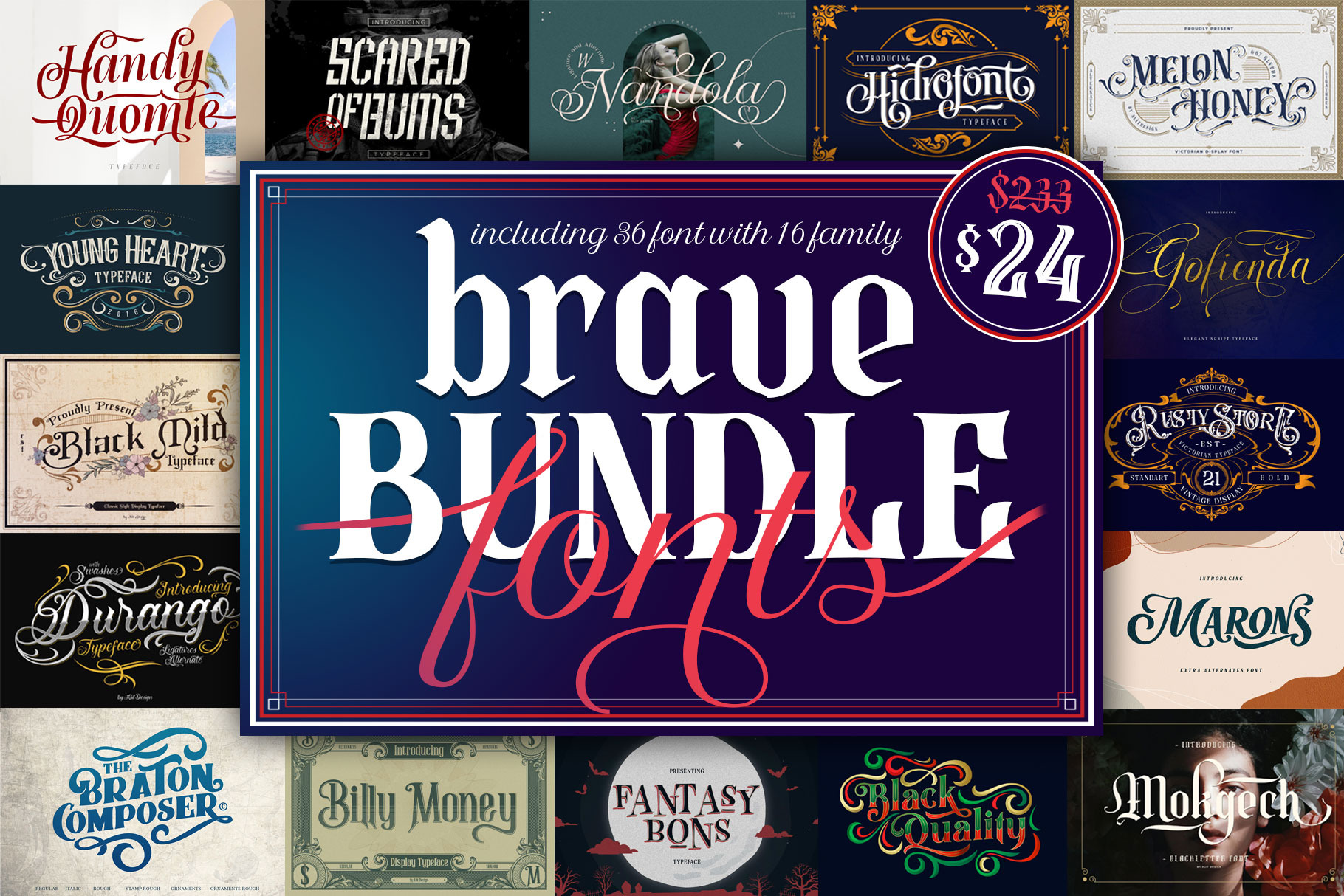
Brave Bundle Fonts
Wow Brave Bundle font is launched which contains cool and manly fonts, Victorian style fonts full of bold curves, tattoo style fonts and elegant scripts are included in this bundle.